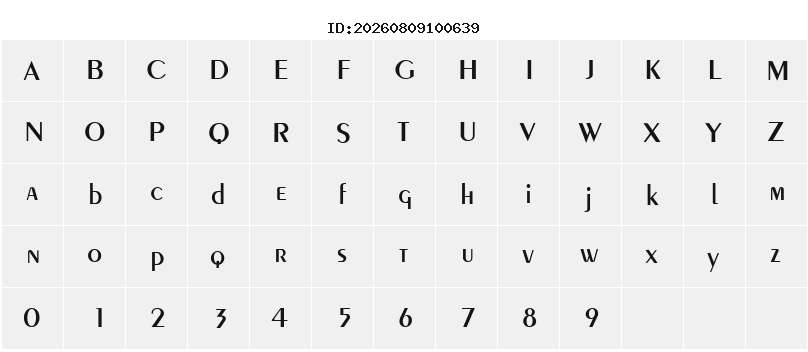
Penyae Preview
• Font Name: Penyae
• Full Font Name: Penyae Regular
About Penyae.ttf
Penyae.ttf is a modern, elegant sans-serif font designed for ultimate readability and visual harmony. Perfect for branding, headlines, web design, and print materials.